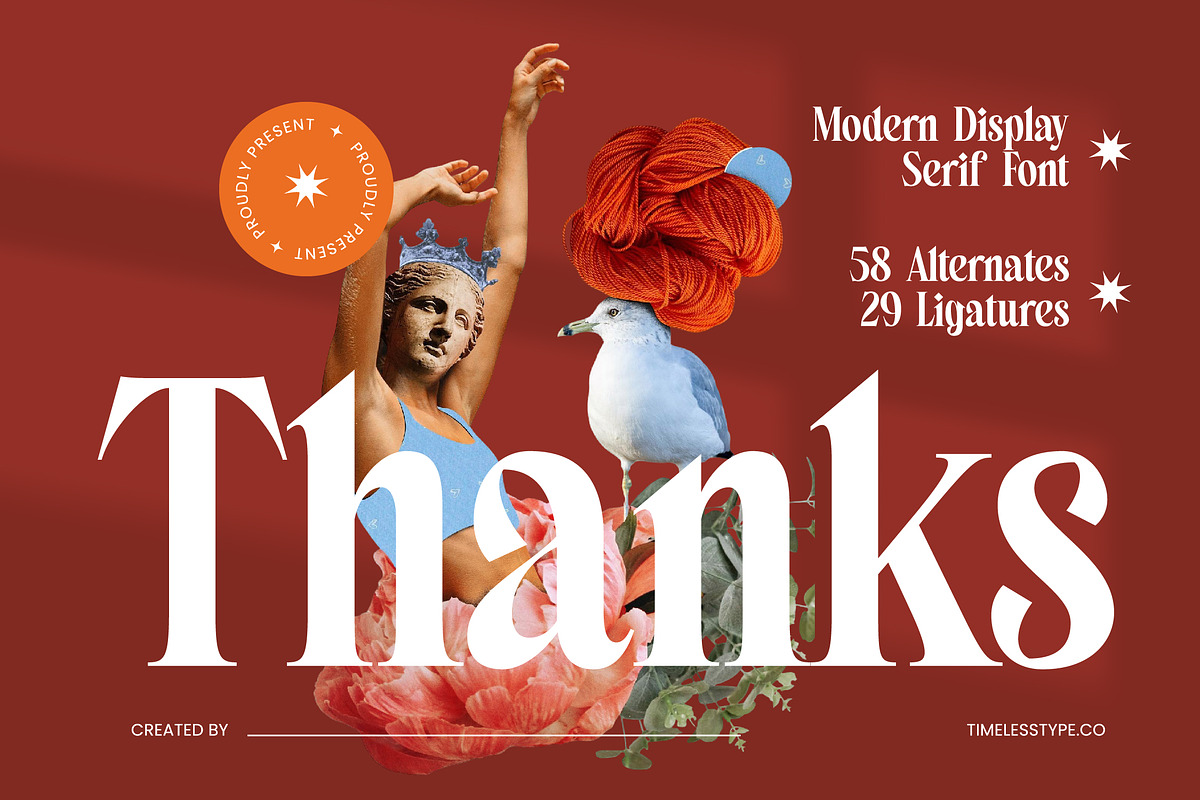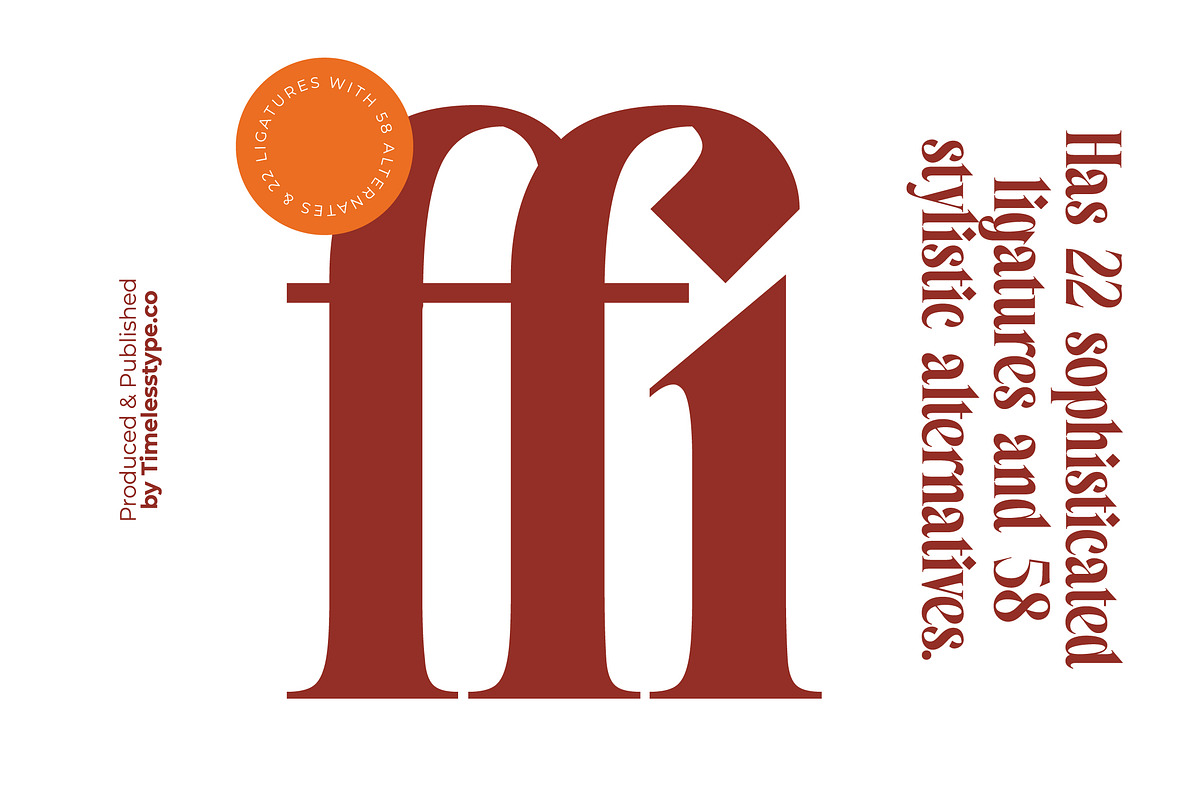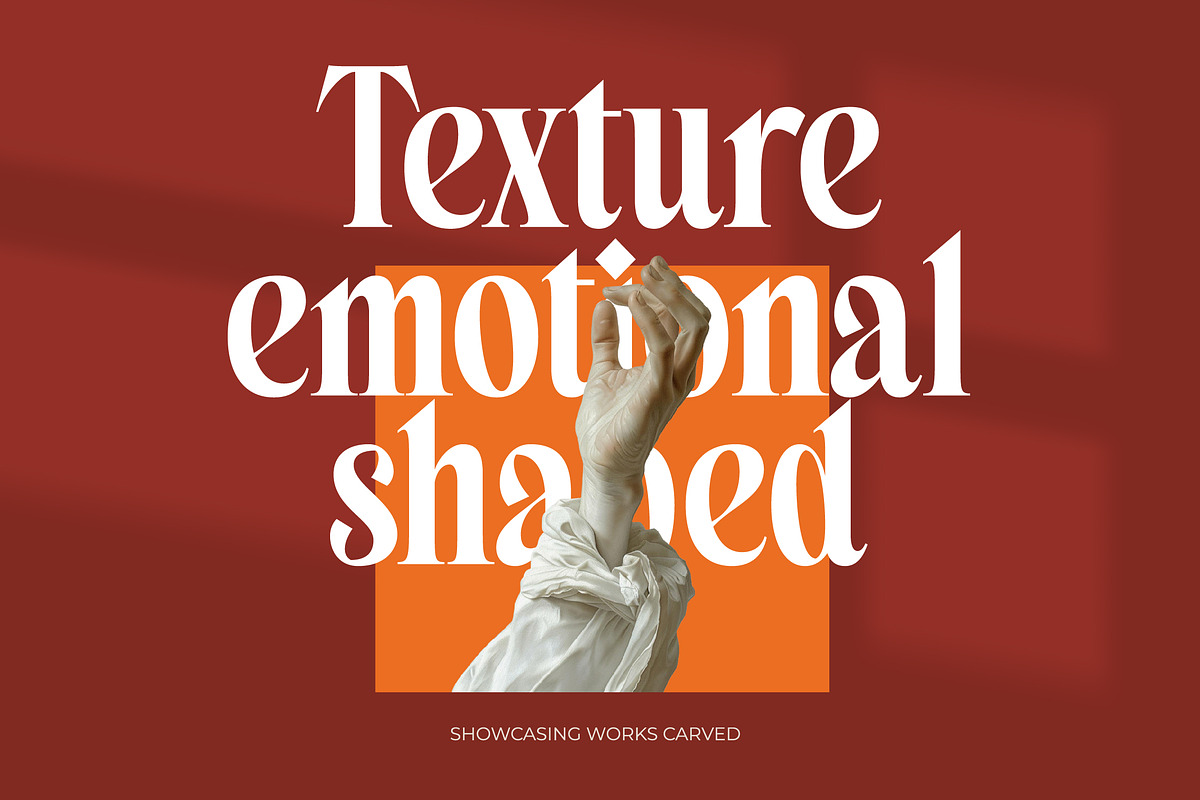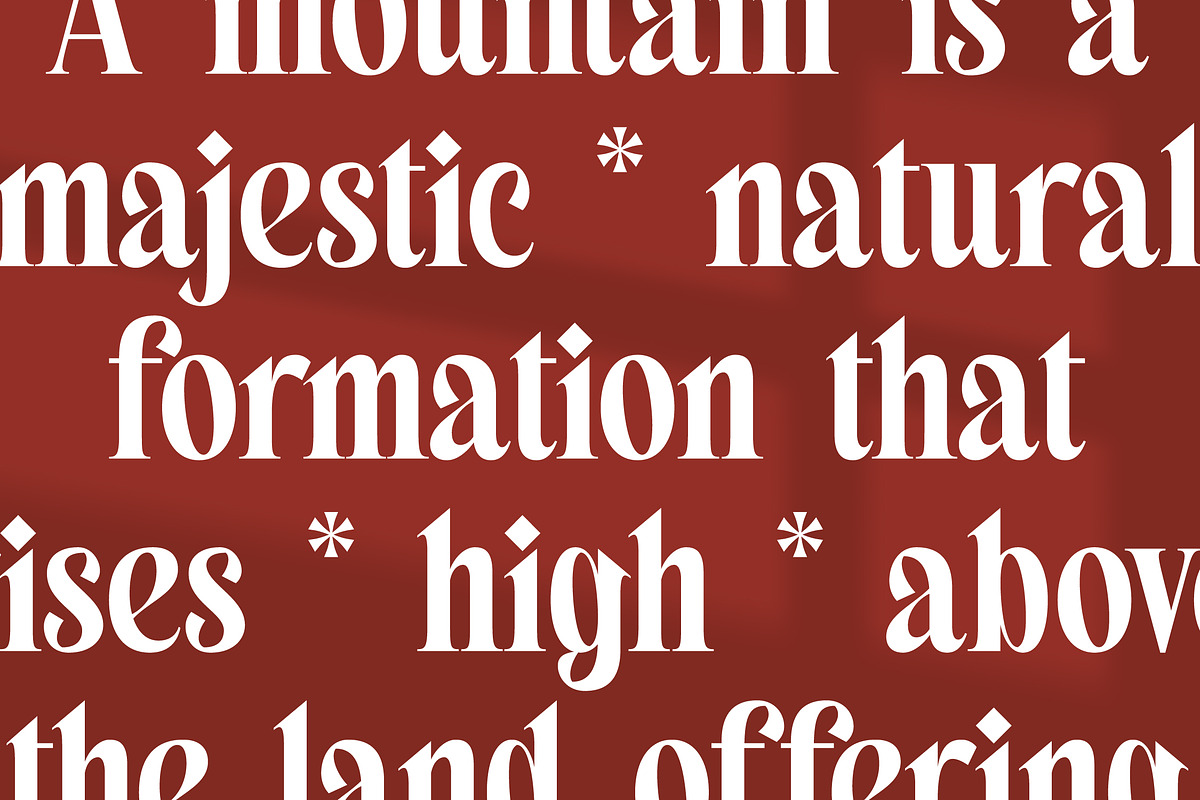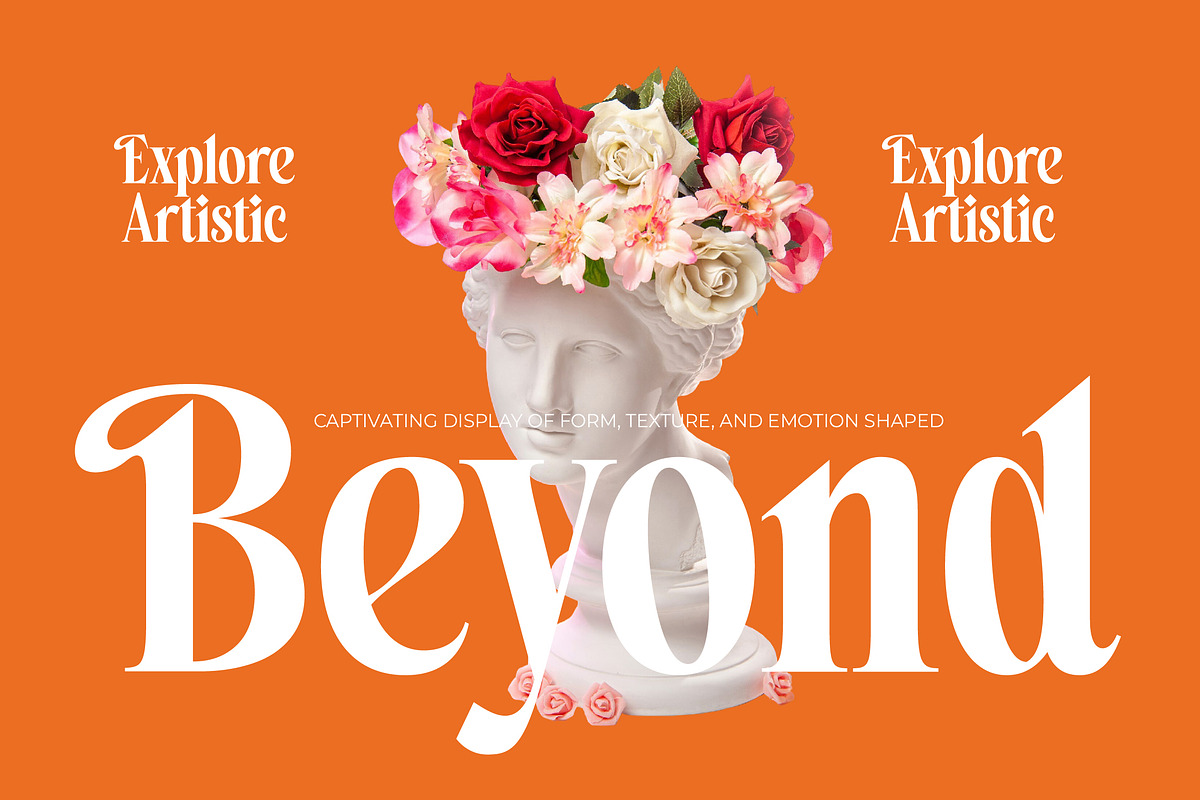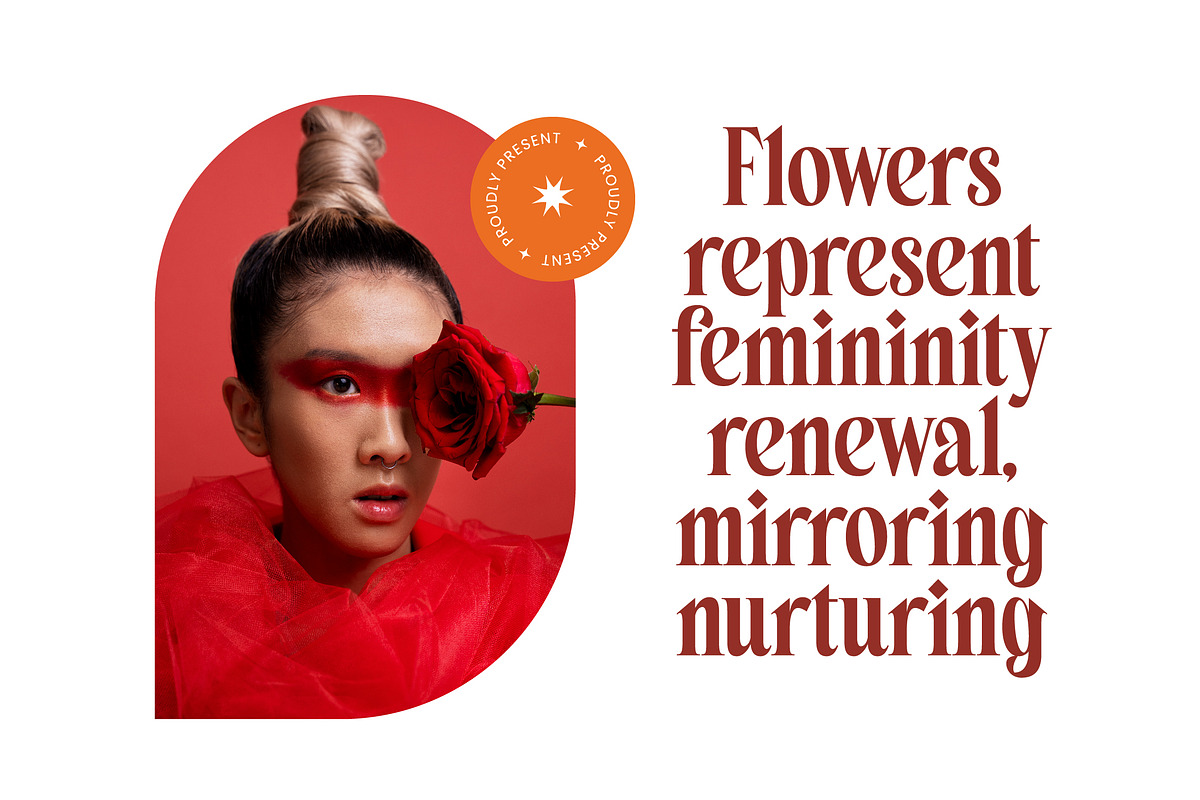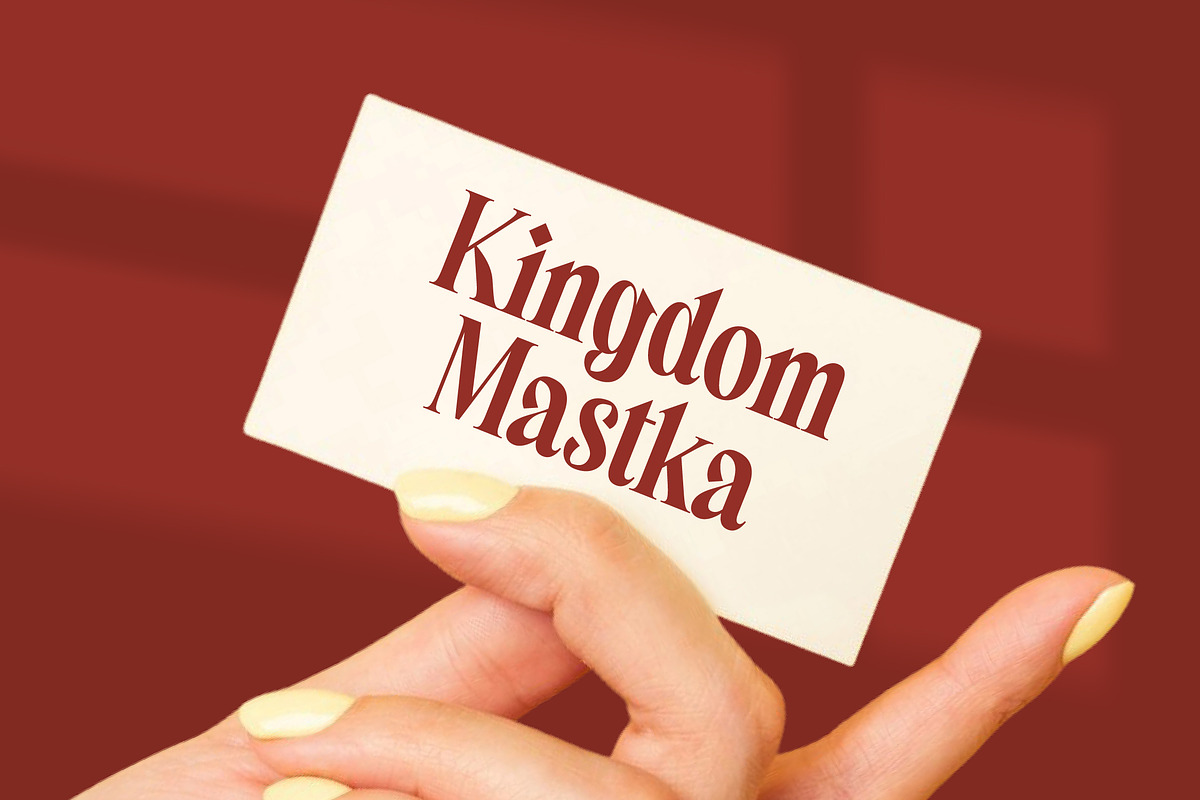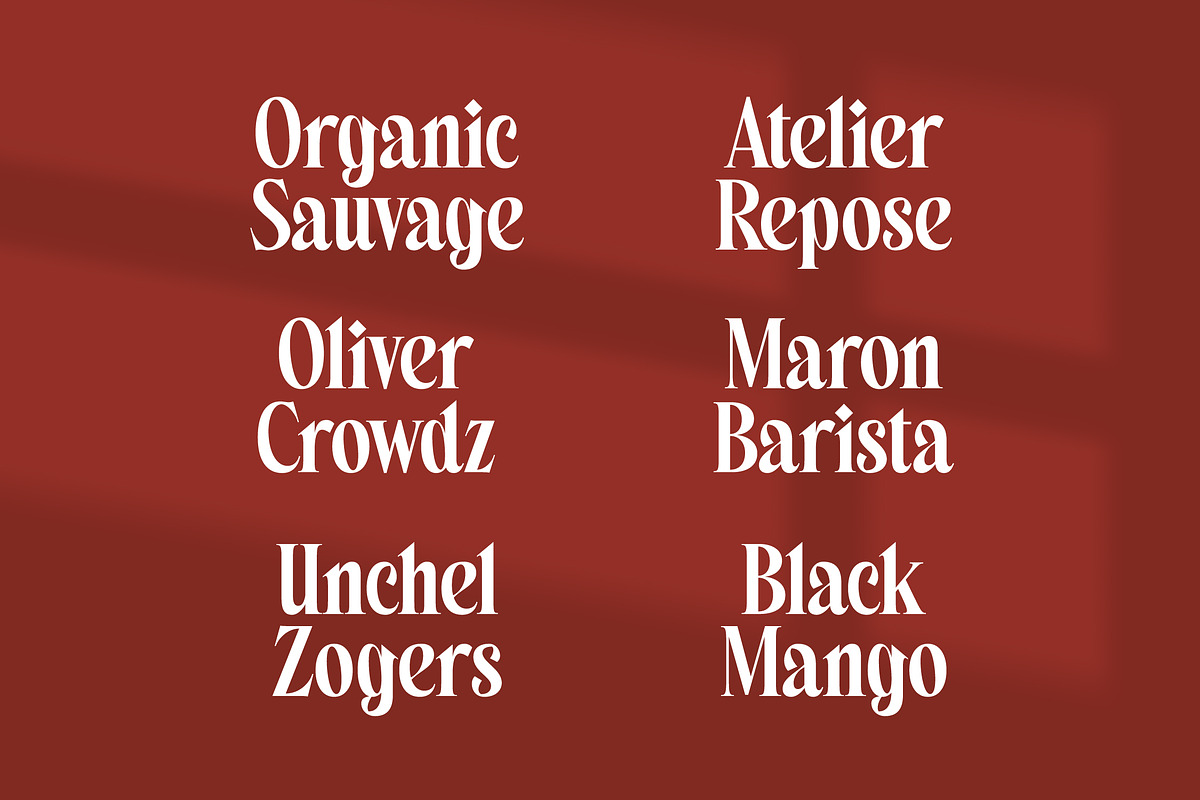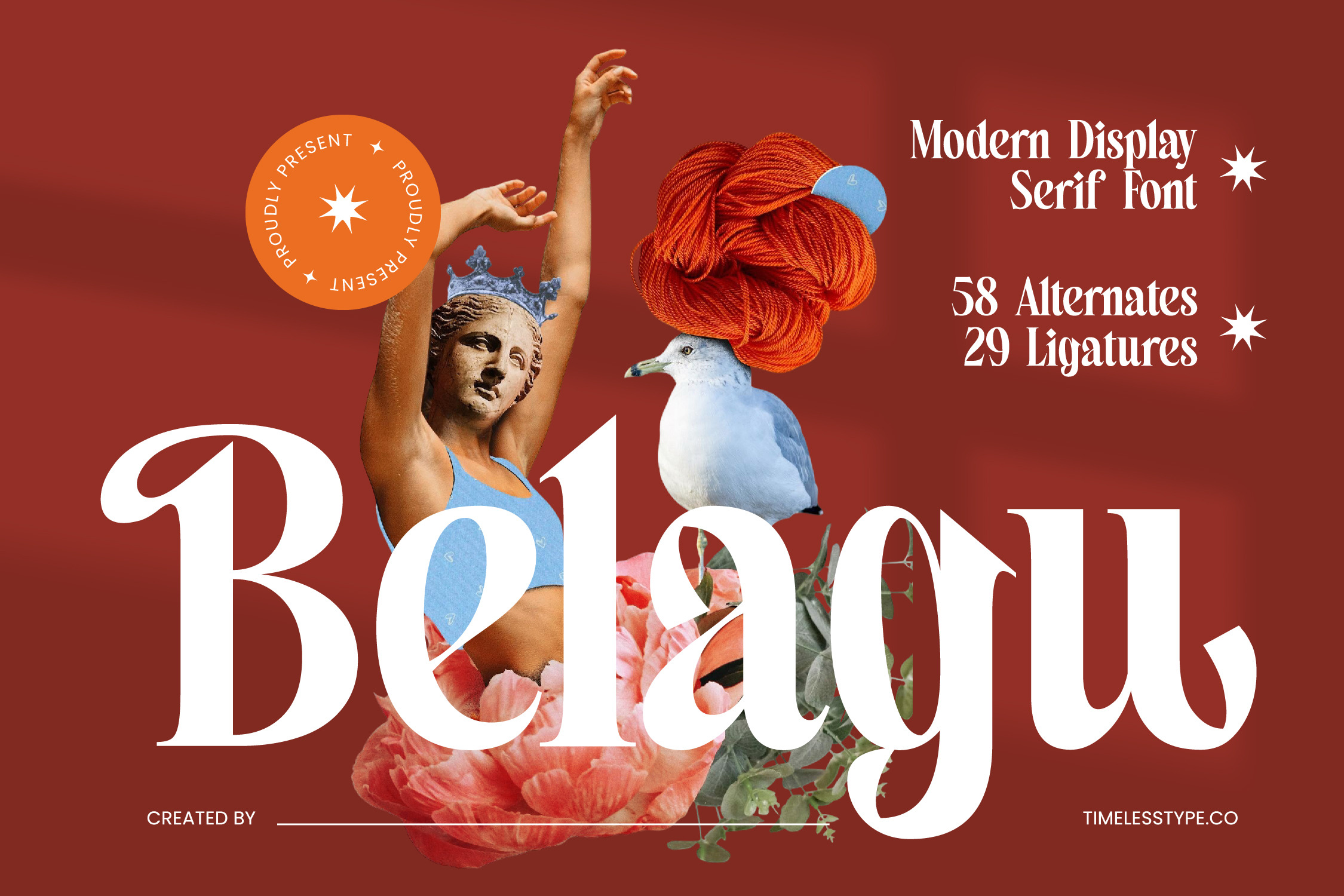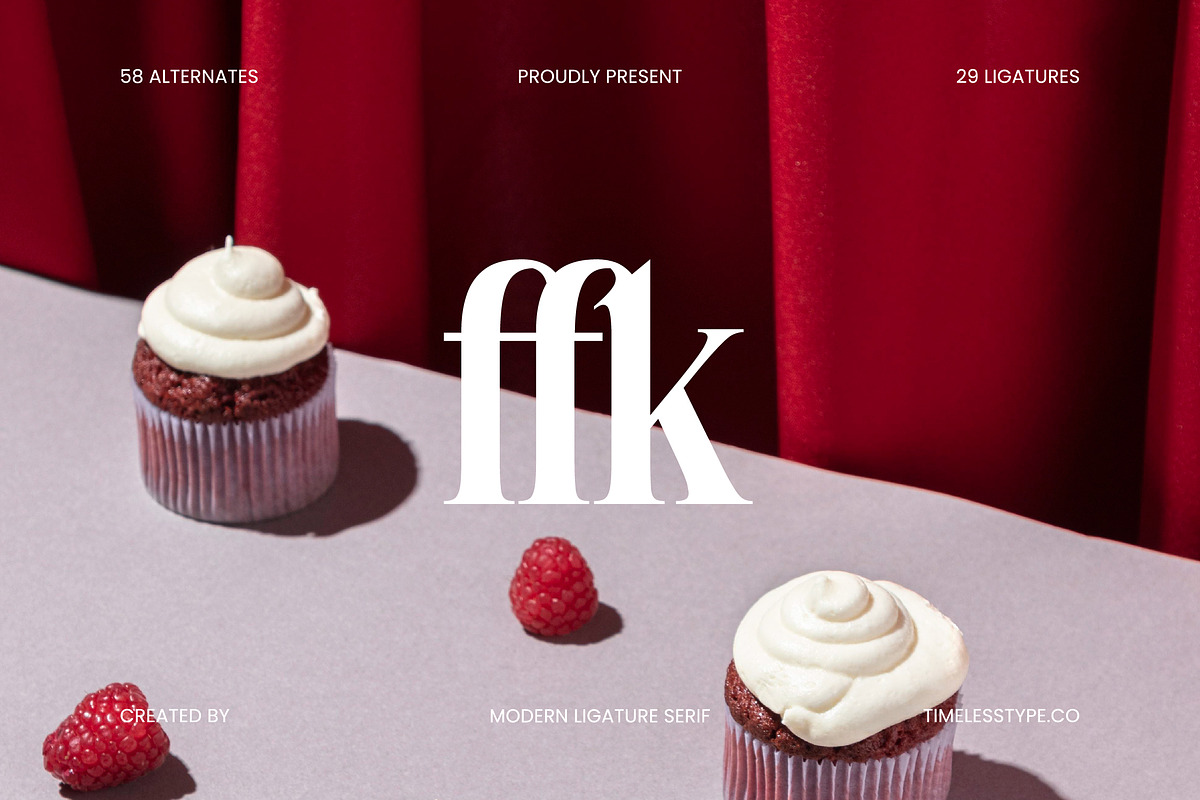
Belagu Modern Display Serif Font
Belagu is a masterclass in sophistication, blending classical elegance with a contemporary edge to define your next creative masterpiece. It invites a sense of timeless beauty into every design, making a bold yet refined statement that captures immediate attention.
Inspired by the collage-style surrealism and the graceful curves of neoclassical sculpture, this typeface bridges the gap between antiquity and the digital age. It carries an aura of high-end galleries and avant-garde fashion magazines, where every stroke tells a story of artistic heritage and modern flair.
This modern serif display exudes an air of luxury typography through its high-contrast serif design. Its sharp terminals and fluid curves create a striking editorial font that ensures a massive branding impact, making it the perfect choice for designers who refuse to settle for the ordinary.
Tapping into the current modern serif trend, this typeface is a staple for editorial display fonts that prioritize unique aesthetics. Its character-driven typography meets the growing demand for distinct brand identities that need to stand out with grace in a saturated digital landscape.
Whether you are crafting a high-end logo design or developing a cohesive branding suite, Belagu delivers unparalleled versatility. It is the ideal choice for editorial layouts, luxury packaging, romantic wedding invitations, and sophisticated fashion lookbooks.
The font package is loaded with 58 alternates and 29 ligatures to give your text a custom-lettered feel, including various decorative swashes. It also includes comprehensive multilingual support and international characters, ensuring your creative message reaches a global audience with ease.